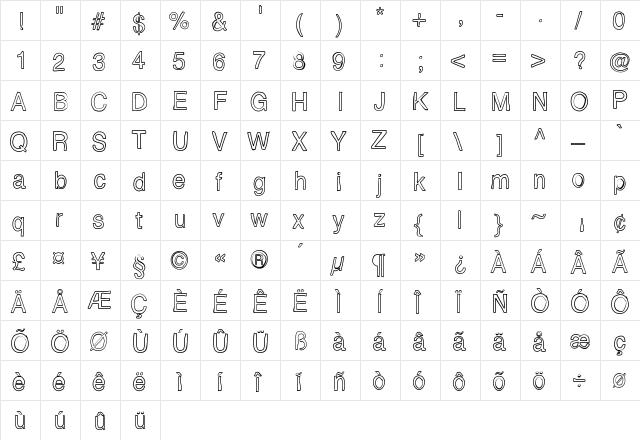
EpicAwesomeness Medium
Design Context for EpicAwesomeness Typeface
EpicAwesomeness is a composed and adaptable typeface that performs quietly and consistently across a wide range of design contexts.